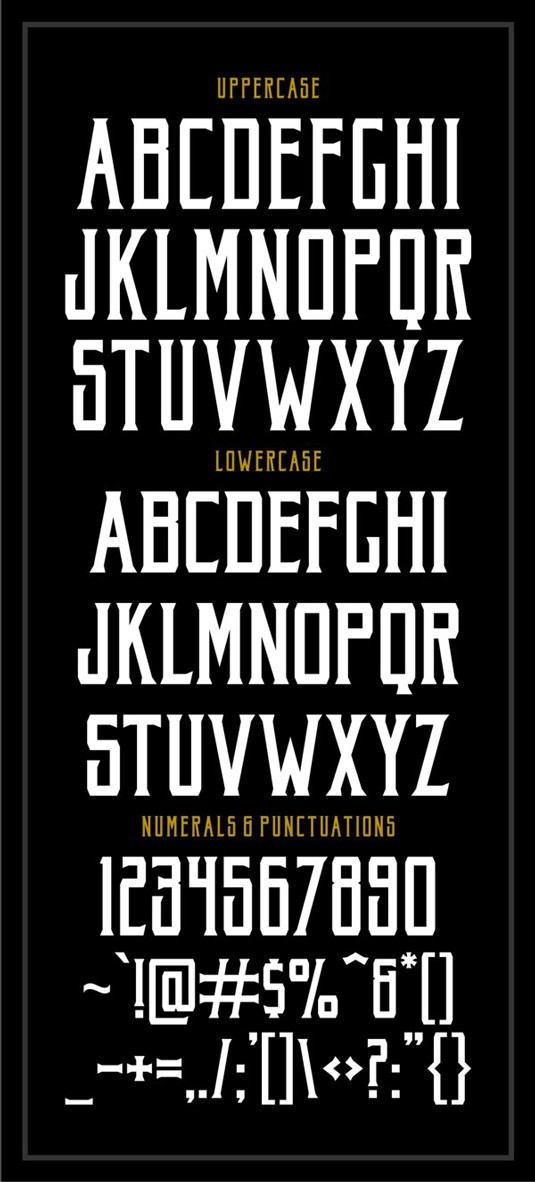
Font of the day: Akura Popo
Akura Popo from Twicolabs Design
Today's font of choice is Akura Popo from Twicolabs Design. The team comment on the typeface on Behance: "Akura Popo is a vintage and classic condensed serif font with a blod, strong and tough-looking style. It's best suited for logos, headlines, letterheads and sport-themed designs."